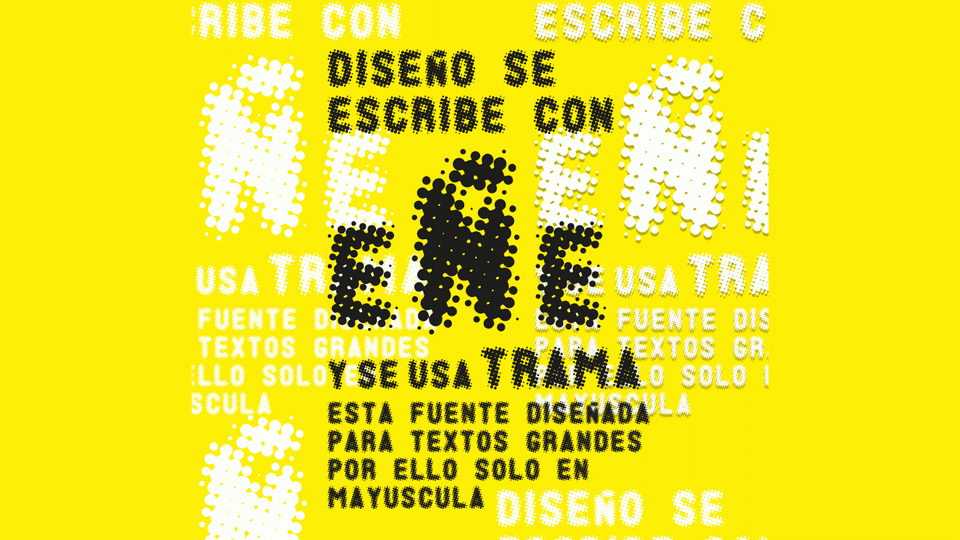
Download Tramapunto font, a creative decorative display typeface designed for short text uses, plays with visual effects. Tramapunto font is useful for posters and headlines.
Designer: Marco Antonio Ramirez Murga